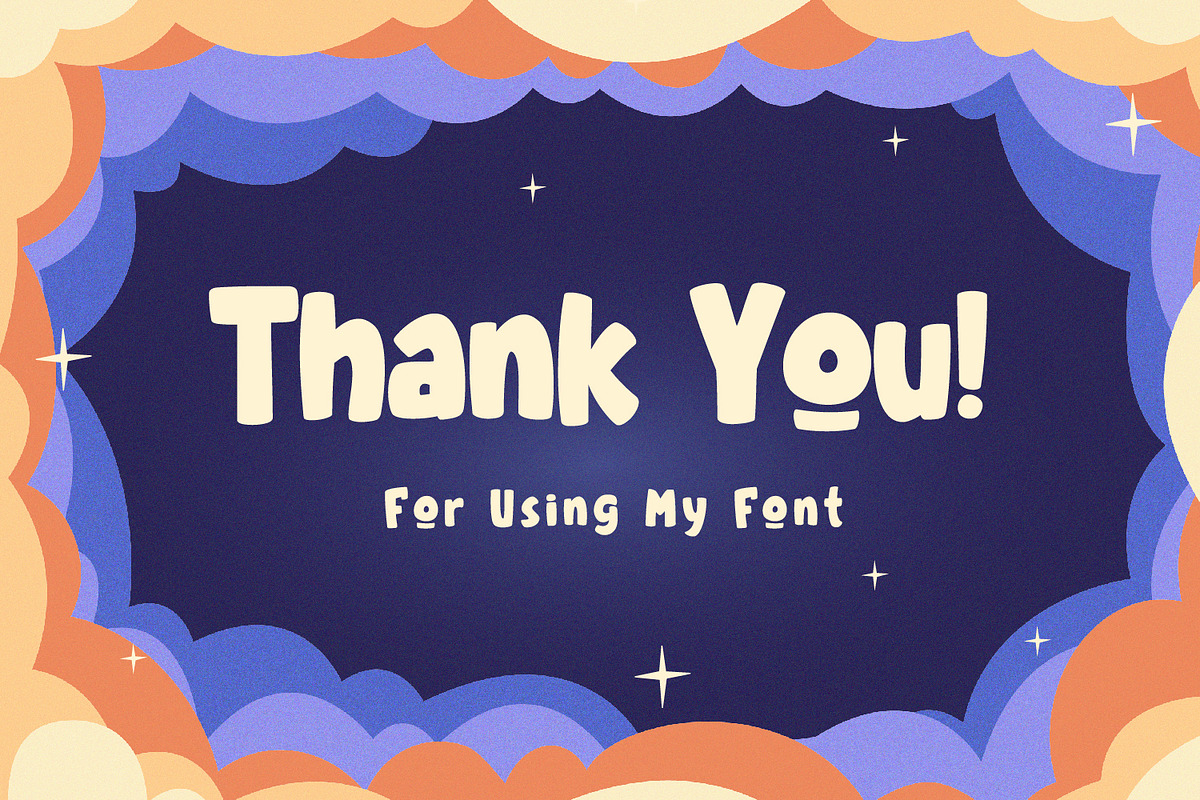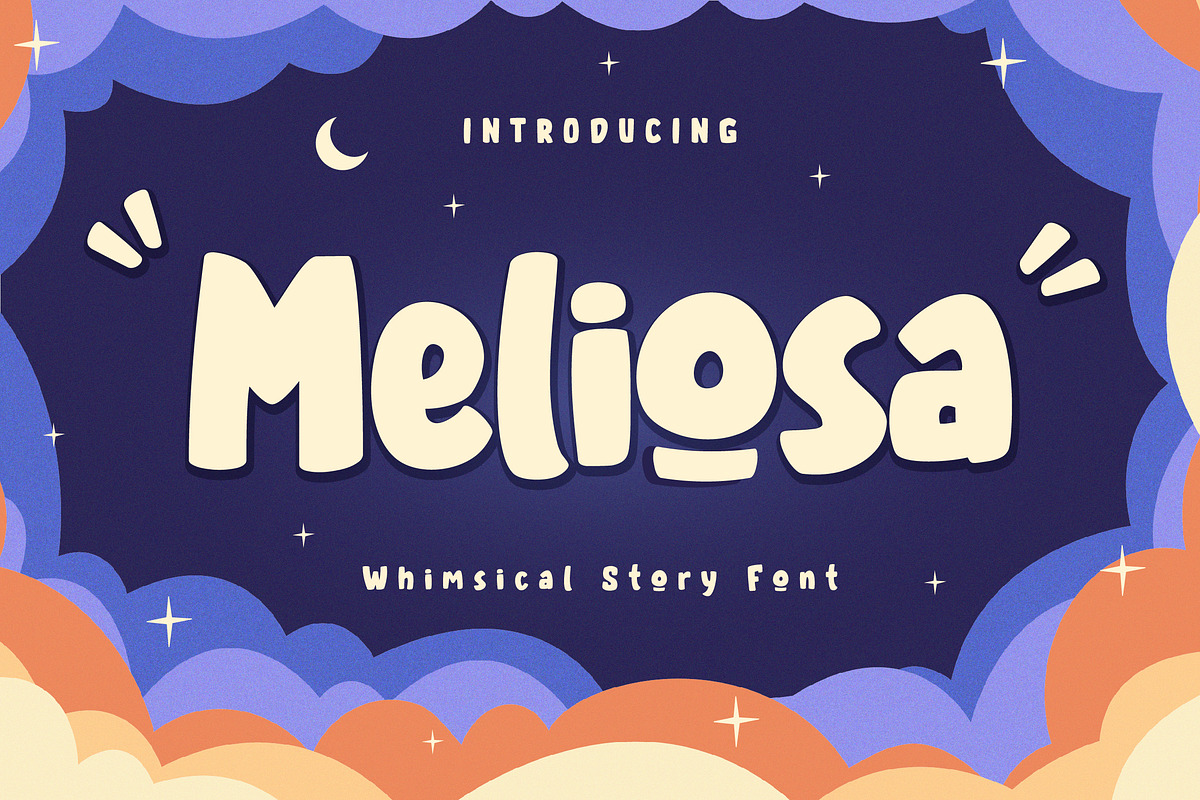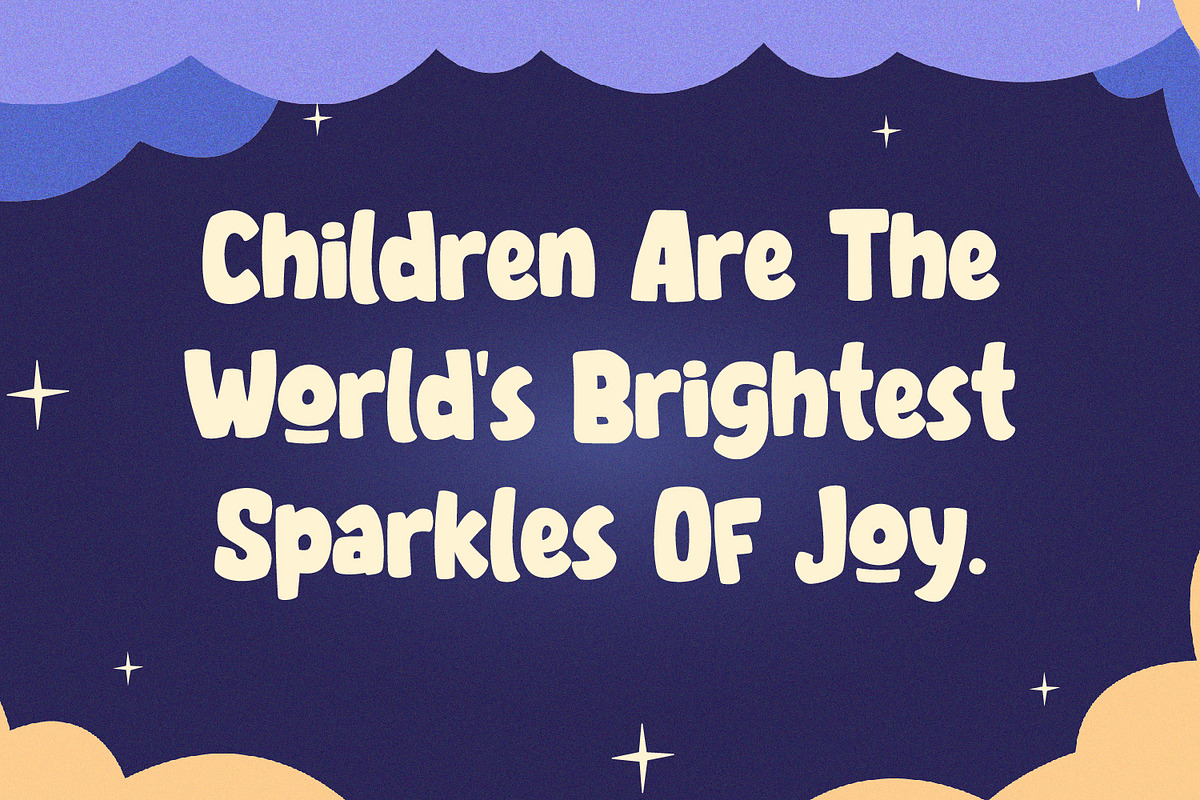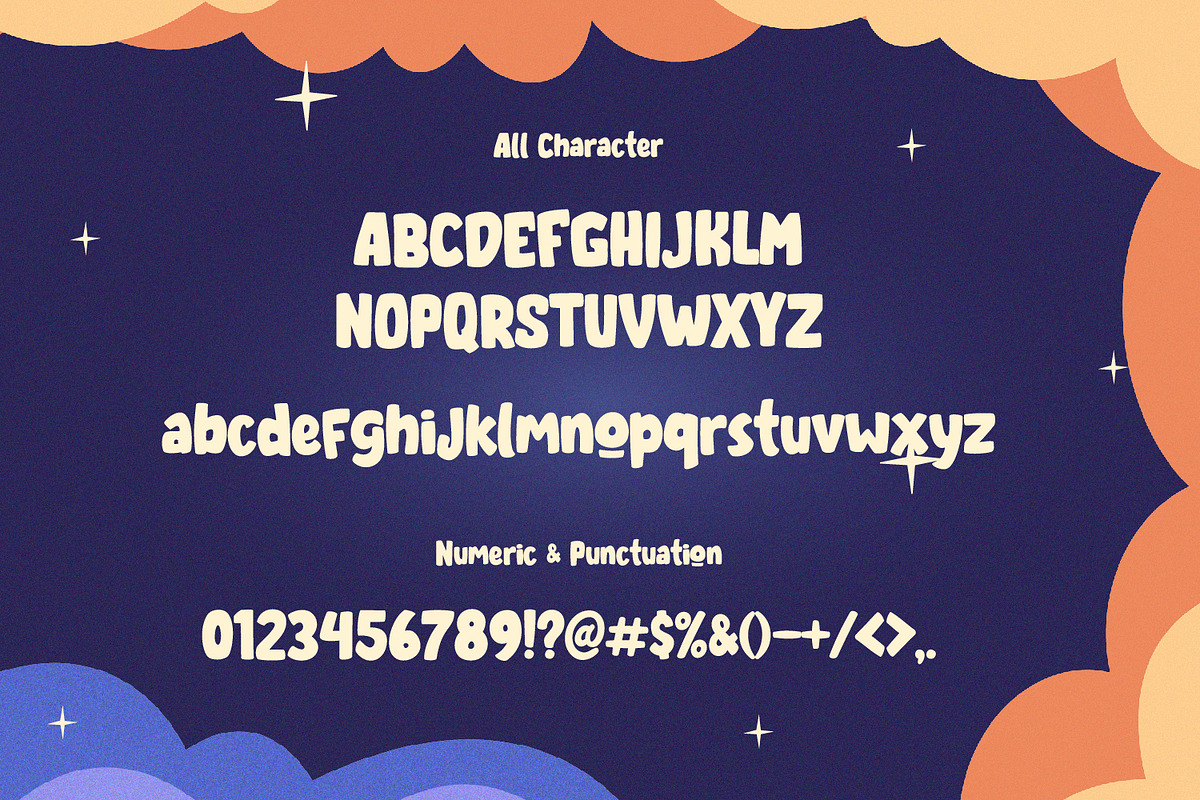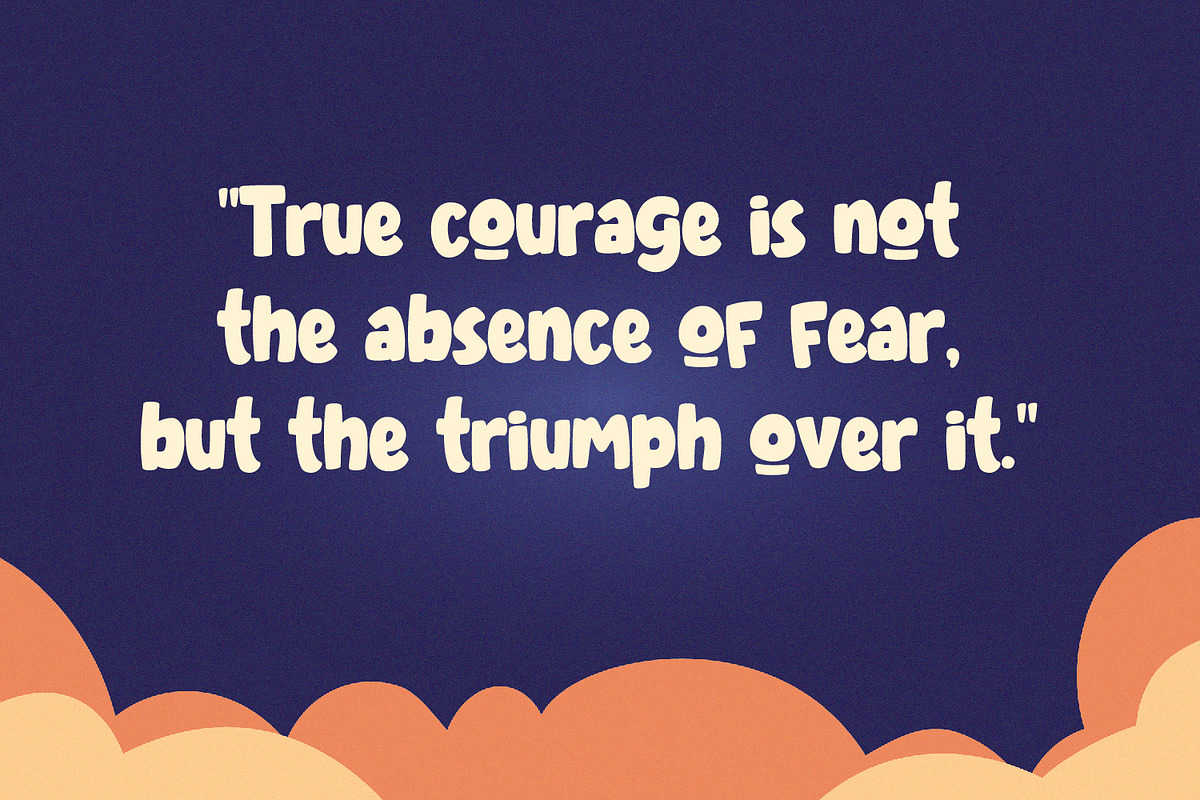
Meliosa - Whimsical Story Font
Introducing Meliosa,
a delightful display font crafted to infuse your designs with whimsy and charm. With its playful strokes and dynamic curves, Meliosa exudes a carefree spirit that adds joy to any project. Whether you're designing children's books, educational materials, or lively invitations, this font brings a touch of fun to every letter. Embrace the playful essence of Meliosa and watch your designs come alive with creativity.
Get ready to craft enchanting experiences for the young and young at heart with Meliosa!